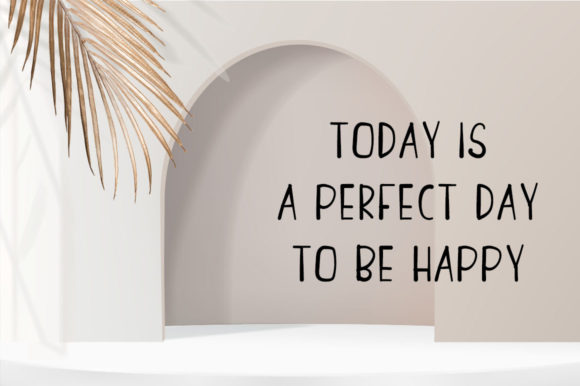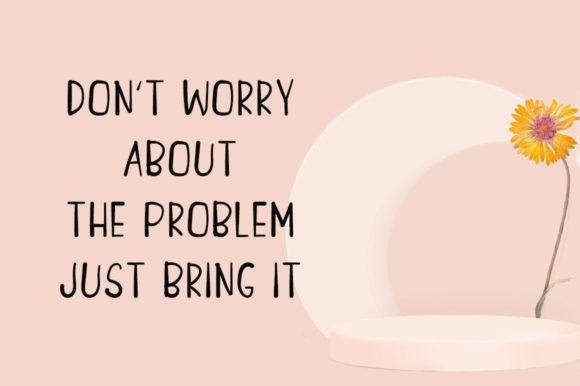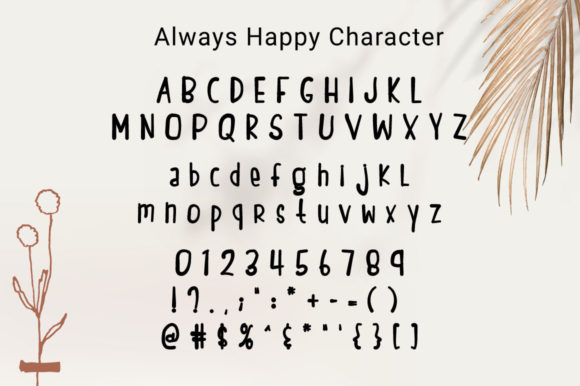
Always Happy Font
About Always Happy Font
“Always Happy”: Embrace Clean, Relaxed, and Friendly Vibes with this Handwritten Font
Introducing “Always Happy,” a font that embodies clean, relaxed, and friendly handwritten charm. Designed for versatility, this font is suitable for a wide variety of designs, thanks to its neat and simple style. With its welcoming demeanor, “Always Happy” has the potential to become your favorite go-to font, adding a touch of joy to your creative projects, no matter the occasion.
The clean and relaxed nature of “Always Happy” sets the tone for a friendly and approachable design. The simplicity of its style contributes to its versatility, making it an ideal choice for a range of applications. Whether you’re working on social media graphics, branding, invitations, or any other project, this font brings a sense of ease and friendliness to your designs.
Imagine using “Always Happy” for greeting cards or personal notes, where the handwritten style adds a warm and personal touch. The font’s clean lines ensure legibility while maintaining a relaxed and natural feel, making it perfect for conveying heartfelt messages. The friendly vibe of the font makes it an excellent choice for spreading positivity and joy through your designs.
In branding and logo design, “Always Happy” becomes a key element in creating a memorable and approachable identity. The font’s clean and friendly aesthetics make it suitable for a diverse range of industries, from lifestyle and wellness to hospitality and beyond. Its versatility ensures that it adapts seamlessly to different visual contexts.
For a wide variety of designs, from posters and signage to product packaging and more, “Always Happy” remains a reliable and delightful choice. Its clean, relaxed, and friendly handwritten style provides a timeless quality that suits both contemporary and classic design preferences.
In conclusion, “Always Happy” is more than just a font; it’s a design companion that brings clean, relaxed, and friendly vibes to your creative projects. Whether you’re designing for personal or professional purposes, let “Always Happy” be the font that adds a touch of joy and approachability to your designs, making every occasion a delightful experience.